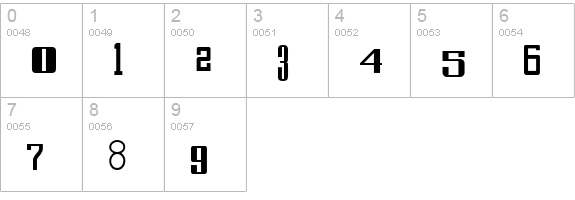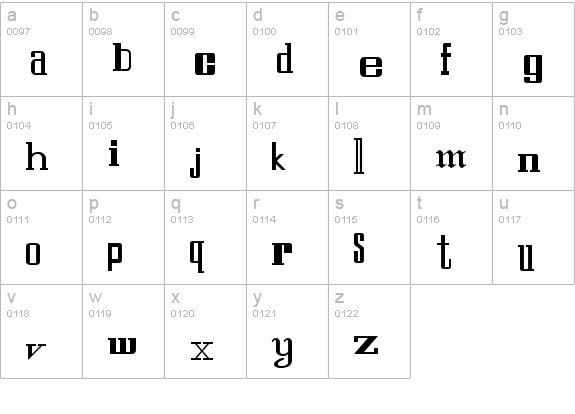
SaintFrancis-Normal Font Details
SaintFrancis-Normal is the standard, neutral variant in the SaintFrancis typeface family \xE2\x80\x94 well suited to general body text, paragraphs, and standard typographic work.
SaintFrancis-Normal font is a beautifully crafted typeface that exudes elegance and sophistication. With its clean lines and graceful curves, this font is perfect for adding a touch of class to any design project. The versatility of SaintFrancis-Normal font allows it to be used in a variety of contexts, from elegant invitations and stationery to stylish logos and branding materials. Its legibility and timeless appeal make it a popular choice among designers and typographers. One of the standout features of SaintFrancis-Normal font is that it is freely available to download at FontsMarket.com. This means that you can easily incorporate this stunning font into your projects without any additional cost. Whether you are a professional designer or a hobbyist, this font offers endless possibilities for creativity. With its wide range of weights and styles, SaintFrancis-Normal font allows you to experiment with different variations and create unique compositions. Its balanced proportions and attention to detail make it a pleasure to work with, ensuring that your designs will stand out from the crowd. In addition to its aesthetic qualities, SaintFrancis-Normal font also offers excellent readability, making it suitable for both print and digital applications. Its clean and crisp appearance ensures that your message will be conveyed clearly and effectively. Whether you are designing a website, creating a magazine layout, or working on a branding project, SaintFrancis-Normal font is a versatile and reliable choice. Its timeless elegance and freely available download option at FontsMarket.com make it a must-have for any designer’s toolkit.